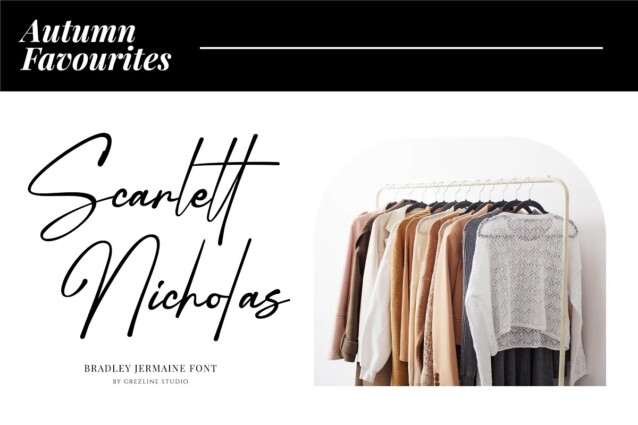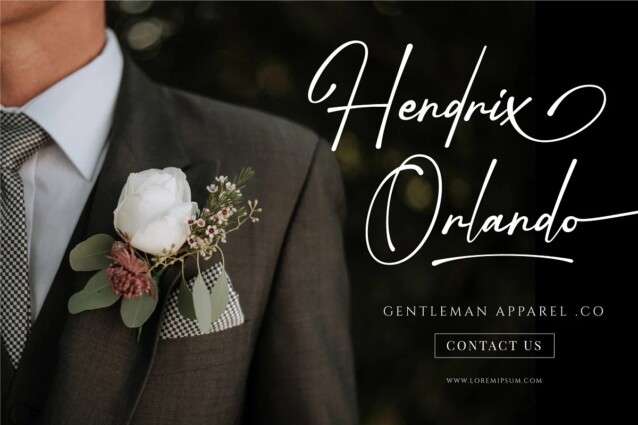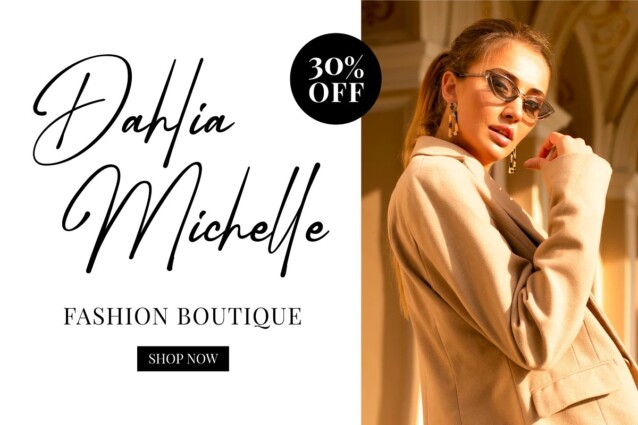
Bradley Jermaine Font
Bradley Jermaine Font is modern classy calligraphy font, this font come with beautiful ligature and lovely alternate. This font is perfect use for fashion-related design. Bradley Jermaine font is also usable in a wide range of works such as website banner, greeting cards, wedding stationery, modern logo/personal branding, social media quotes, and much more!